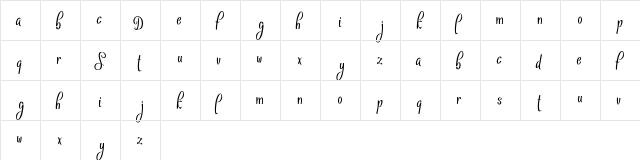
Sthencyl Demo
Design Context for Sthencyl Typeface
Sthencyl is a composed and adaptable typeface that performs quietly and consistently across a wide range of design contexts.
Pro Tip: Pair Sthencyl with a font of contrasting weight or personality to build a more expressive typographic hierarchy.